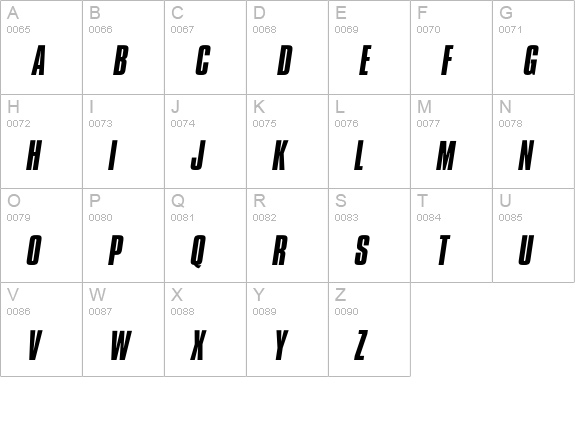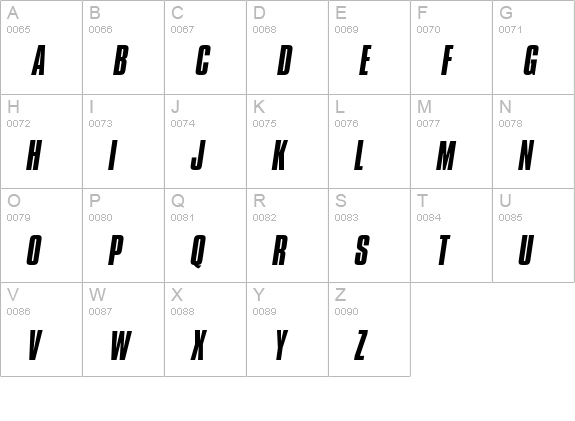
CompactaICG-Italic Font Details
CompactaICG-Italic is a distinctive, italic variant in the CompactaICG typeface family \xE2\x80\x94 well suited to design and typography projects.
CompactaICG-Italic is a sleek and modern font that adds a touch of sophistication to any design. Its italicized style exudes elegance and charm, making it perfect for headings, titles, and creative projects. The unique letterforms and smooth curves of CompactaICG-Italic make it stand out from the crowd, capturing attention and creating a lasting impression. The best part is that CompactaICG-Italic is available for free download at FontsMarket.com. This means you can easily access this stylish font and use it in your personal or commercial projects without any cost. Whether you're designing a website, creating branding materials, or working on a creative piece, CompactaICG-Italic is a versatile and eye-catching choice that will elevate your work to the next level. Download this font today and start adding a touch of sophistication to your designs!